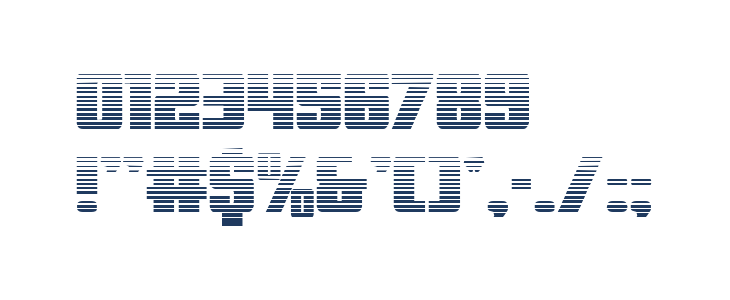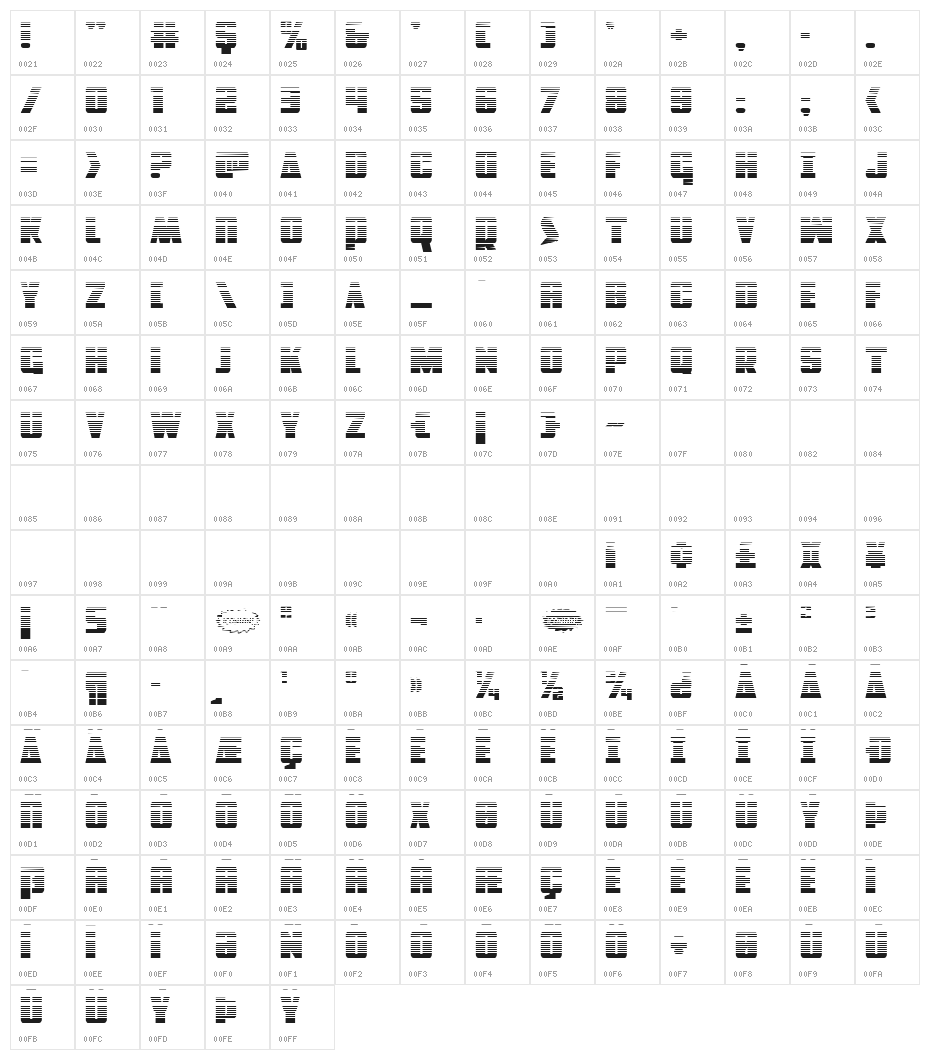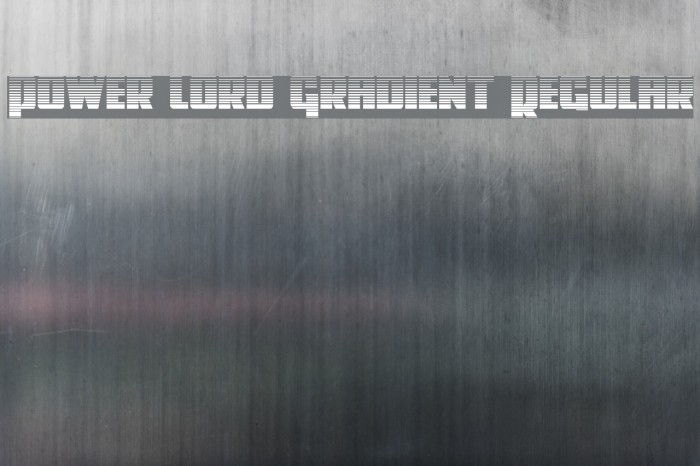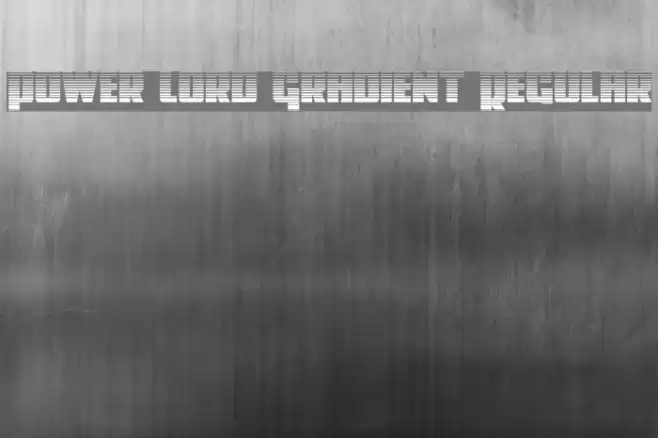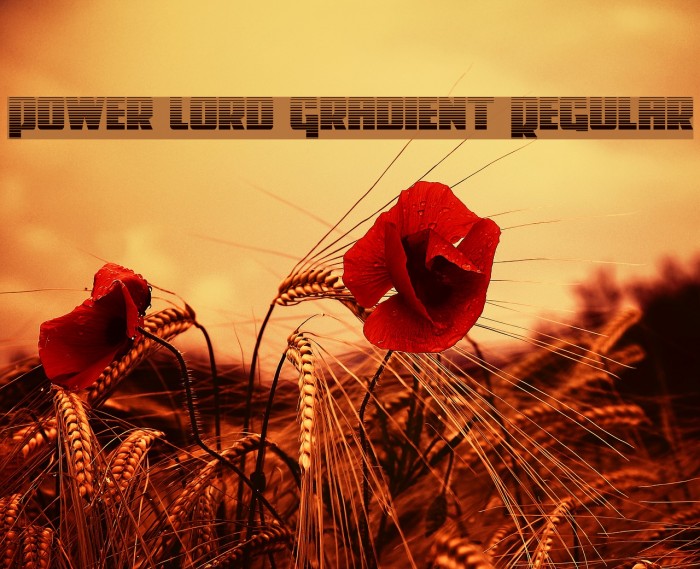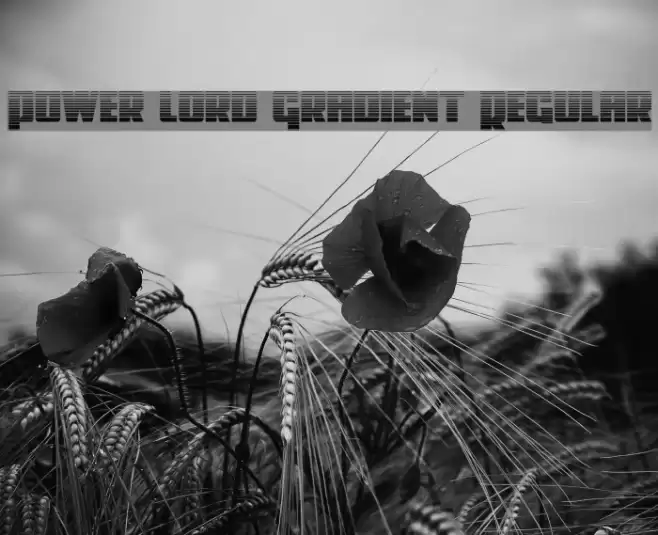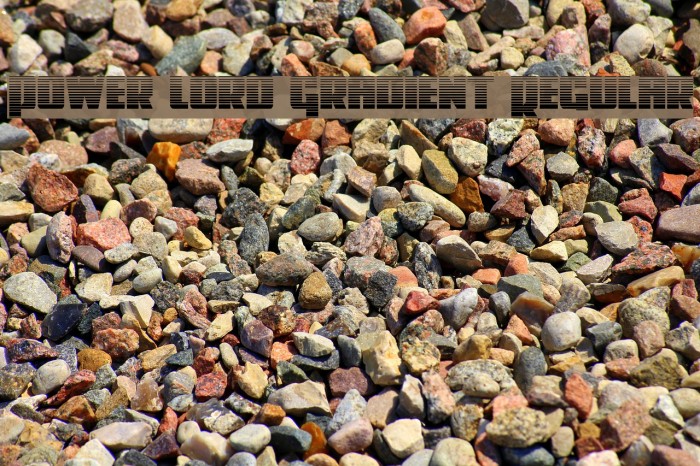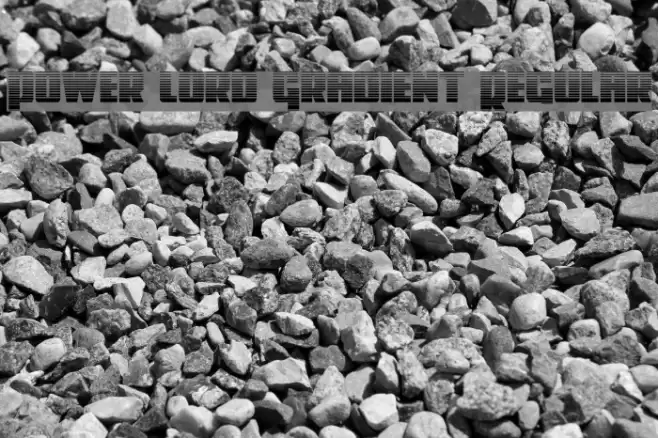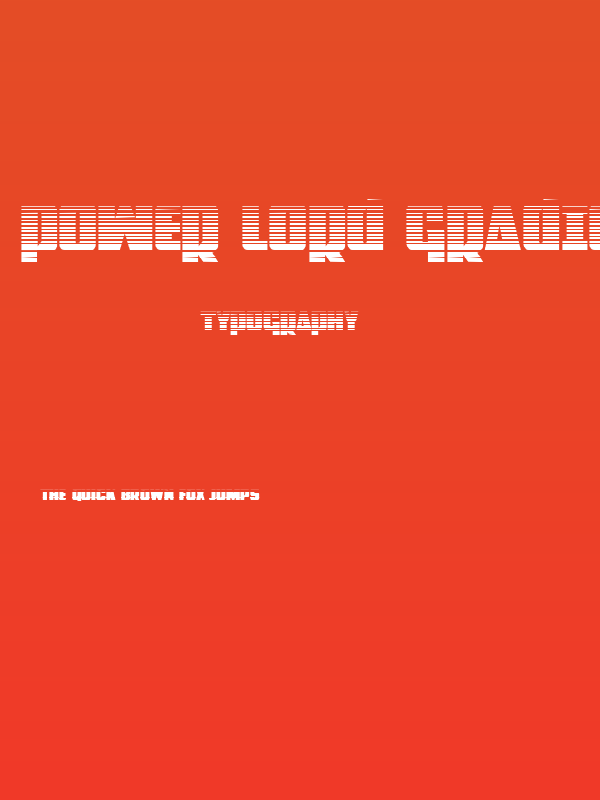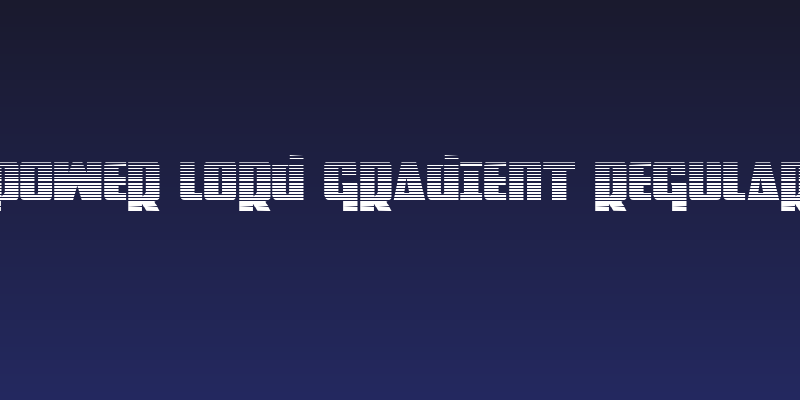
Power Lord Gradient Regular Font
Power Lord Gradient Regular Description
This font features a bold, futuristic design with a distinct gradient effect created by horizontal lines. Each character is constructed with a series of parallel lines that give it a dynamic, three-dimensional appearance. The uppercase and lowercase letters maintain a consistent style, enhancing the font's cohesive look. The numbers and special characters are designed to match the bold and striking aesthetic. This font is ideal for projects that require a modern and eye-catching typeface, such as posters, video game titles, or tech-related branding.
| Proposed Projects | Ideal for posters, video game titles, tech branding, and futuristic designs. |